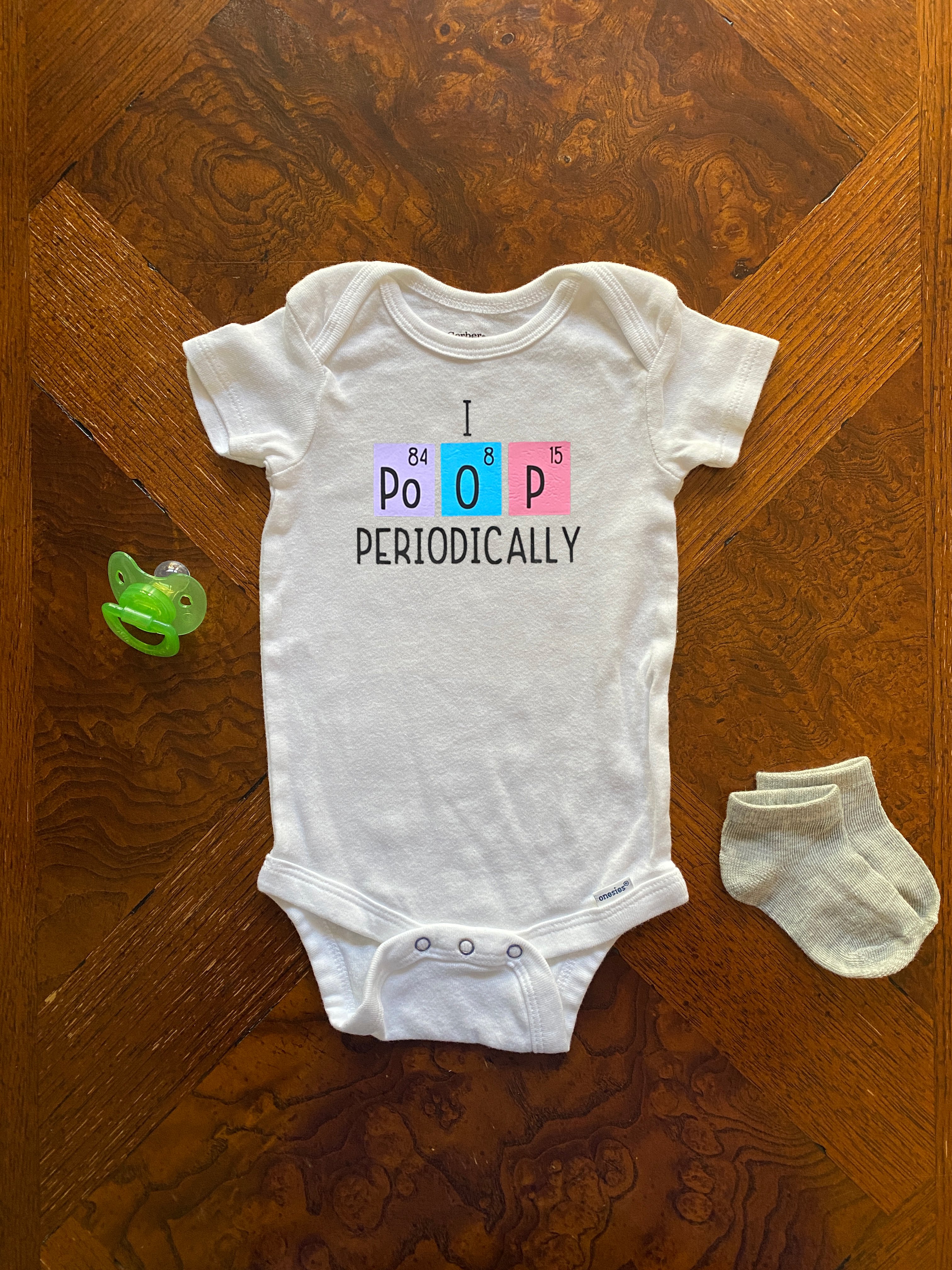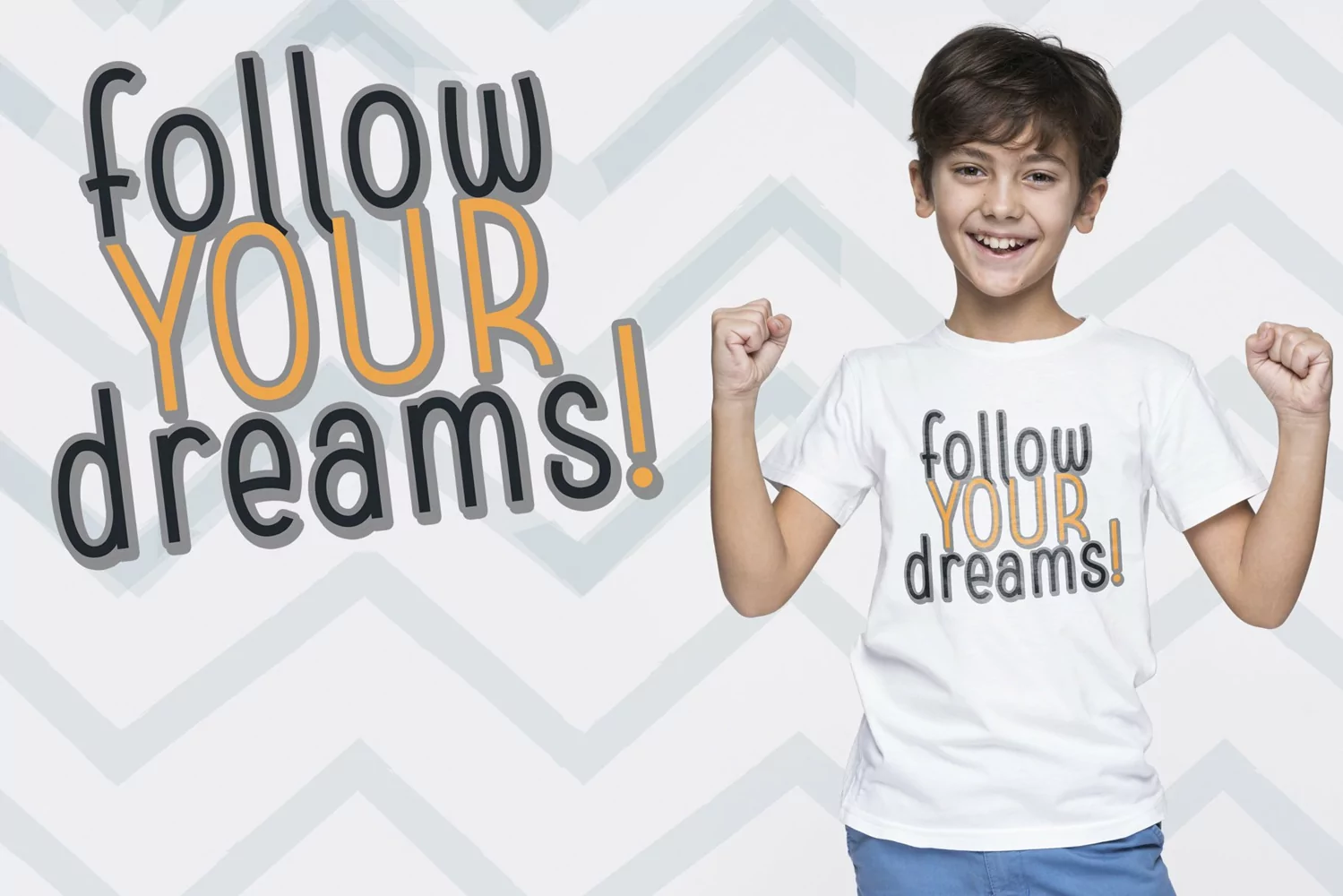
Univlo is a display typeface. Perfect for display, poster, branding, packaging, merchandise, business card, logo, logotype, greeting card, merchandise, crafting, print, t-shirt, pin, header, tittle, many more.